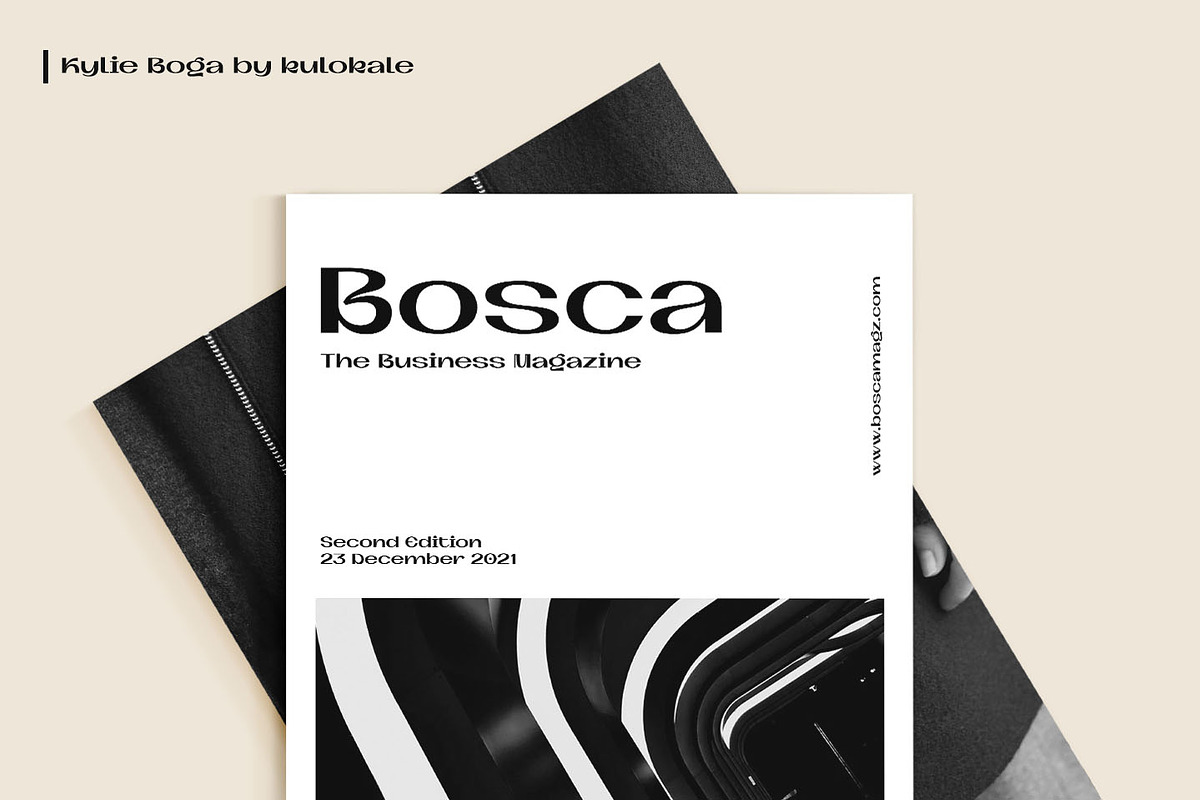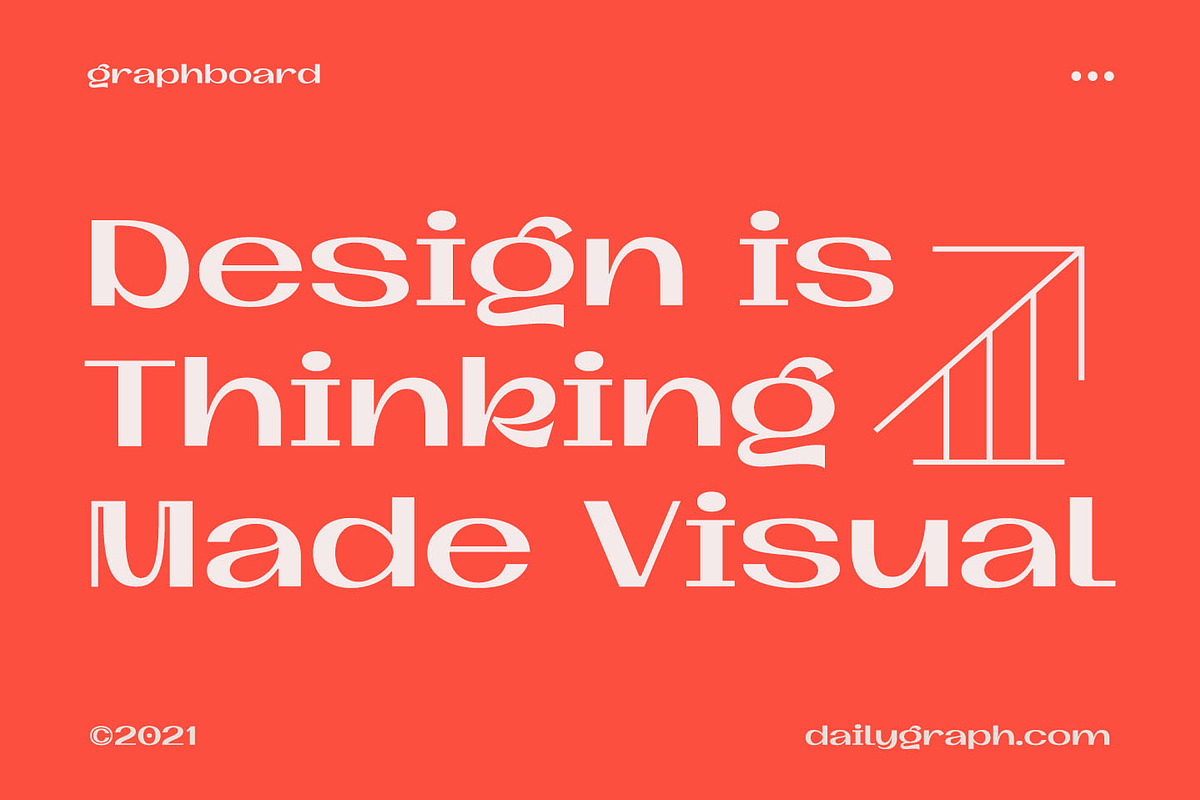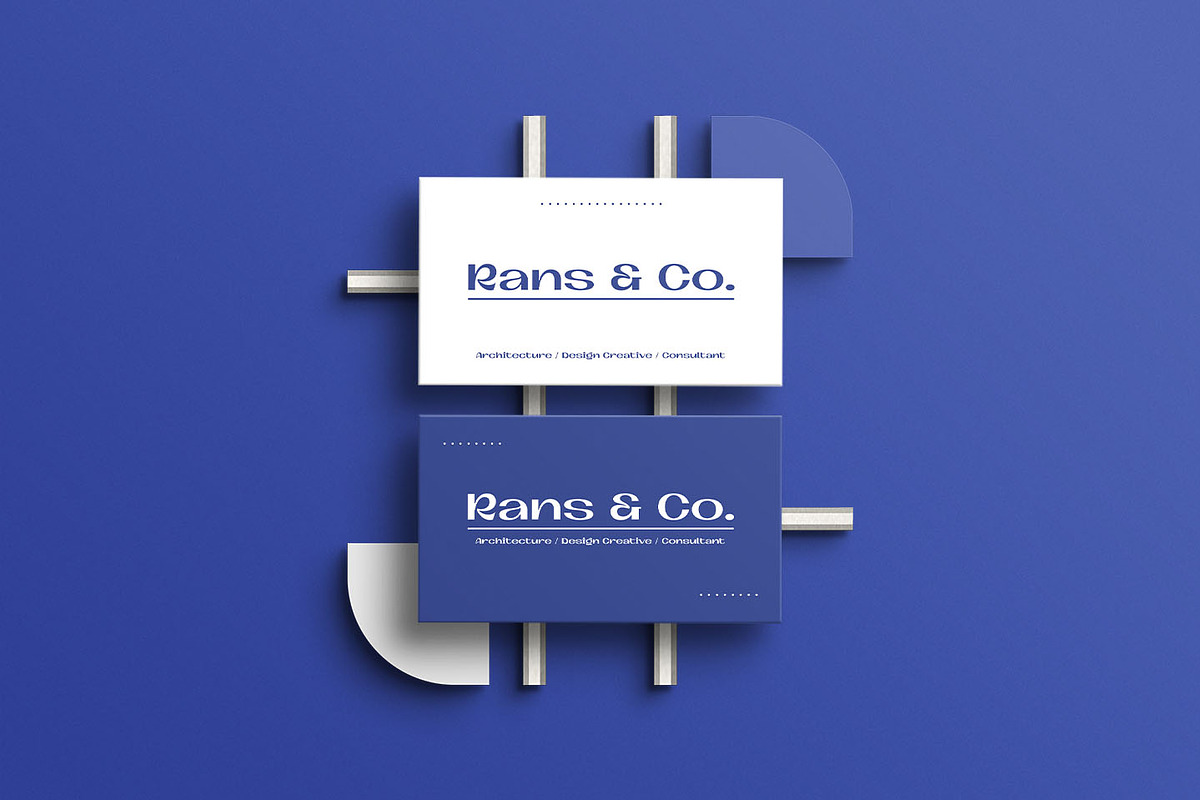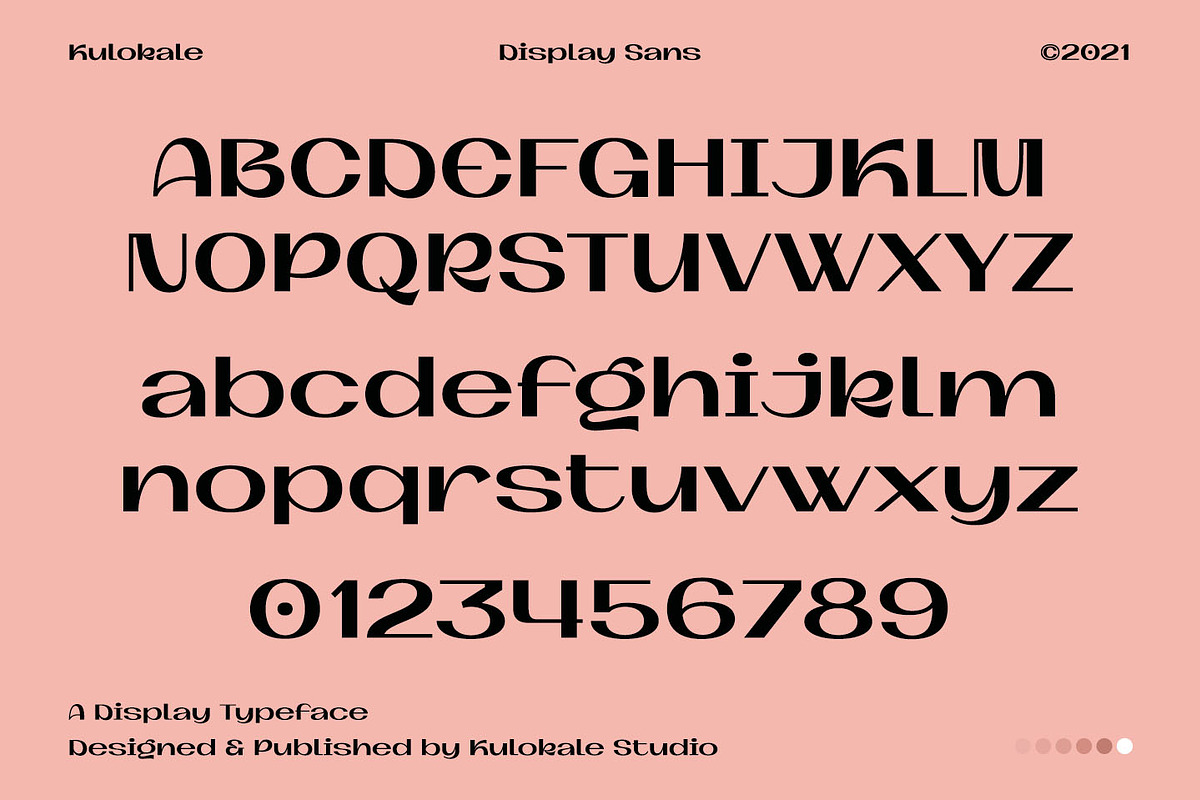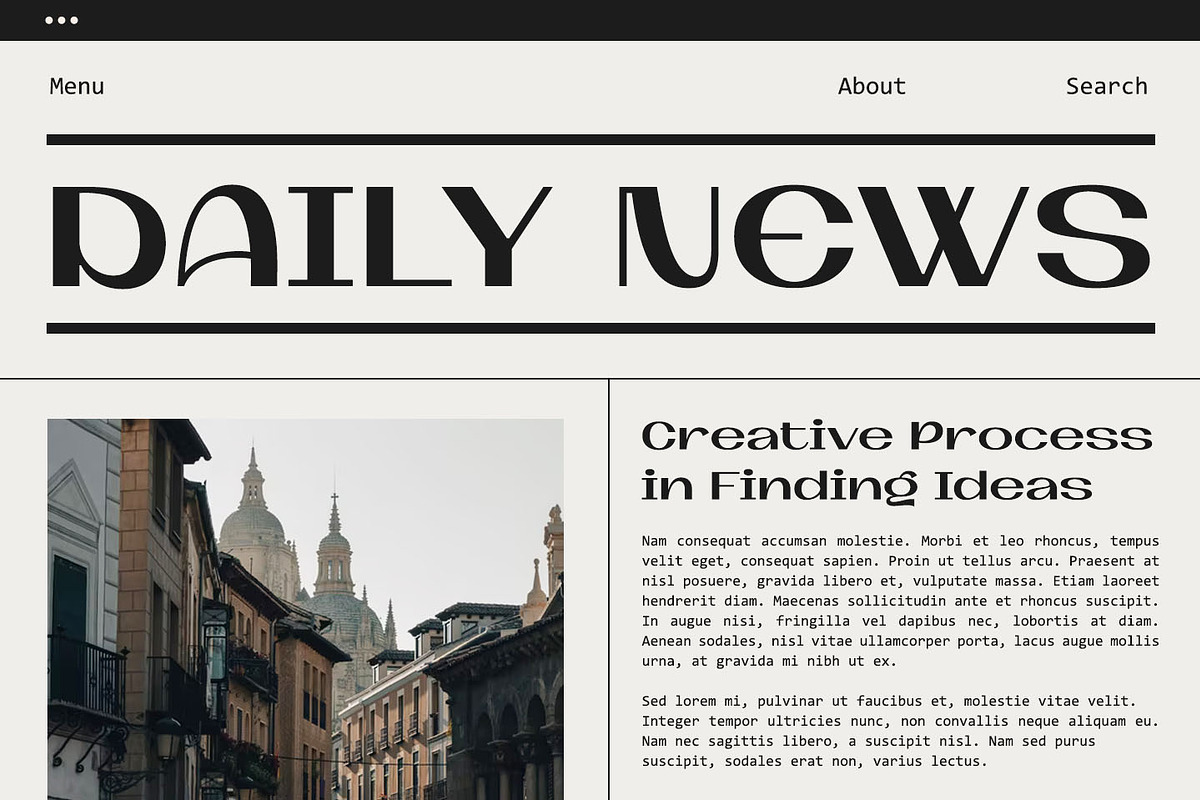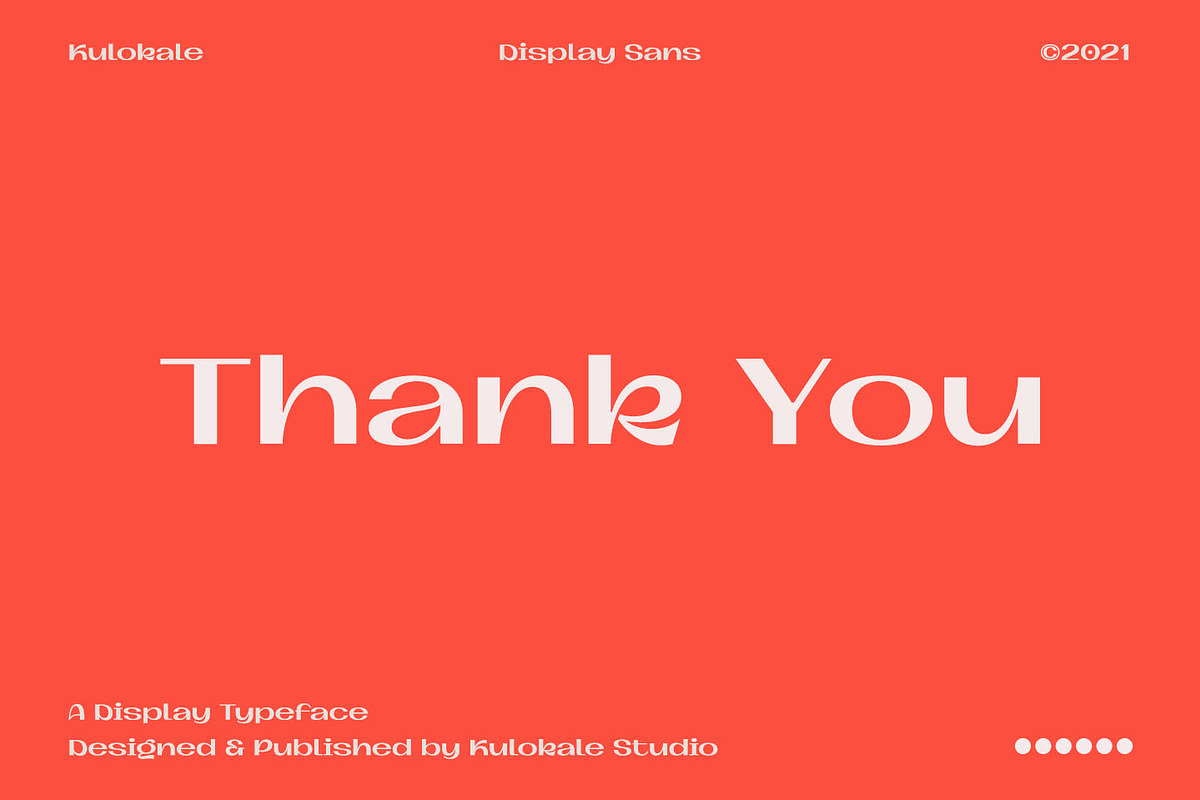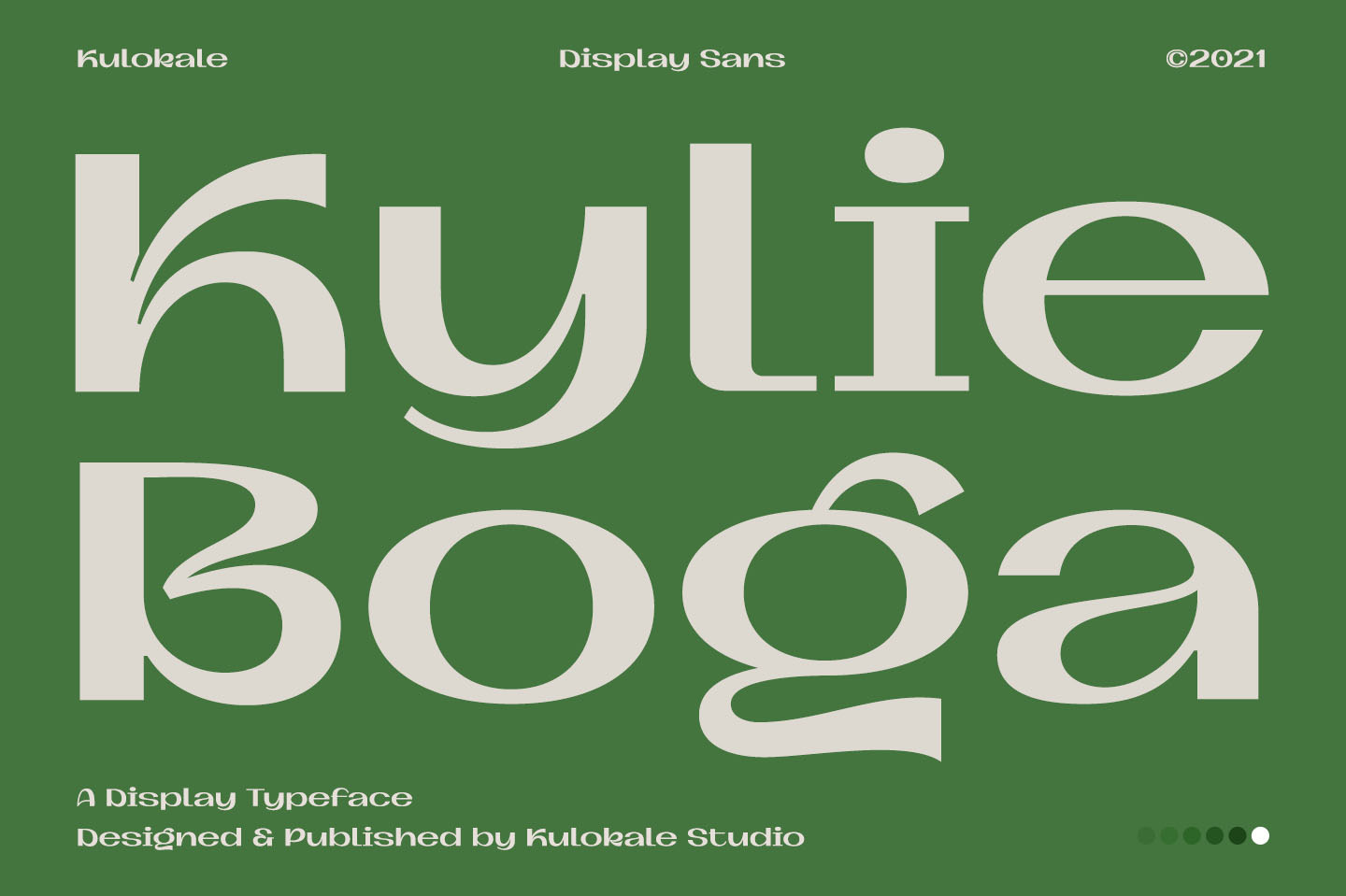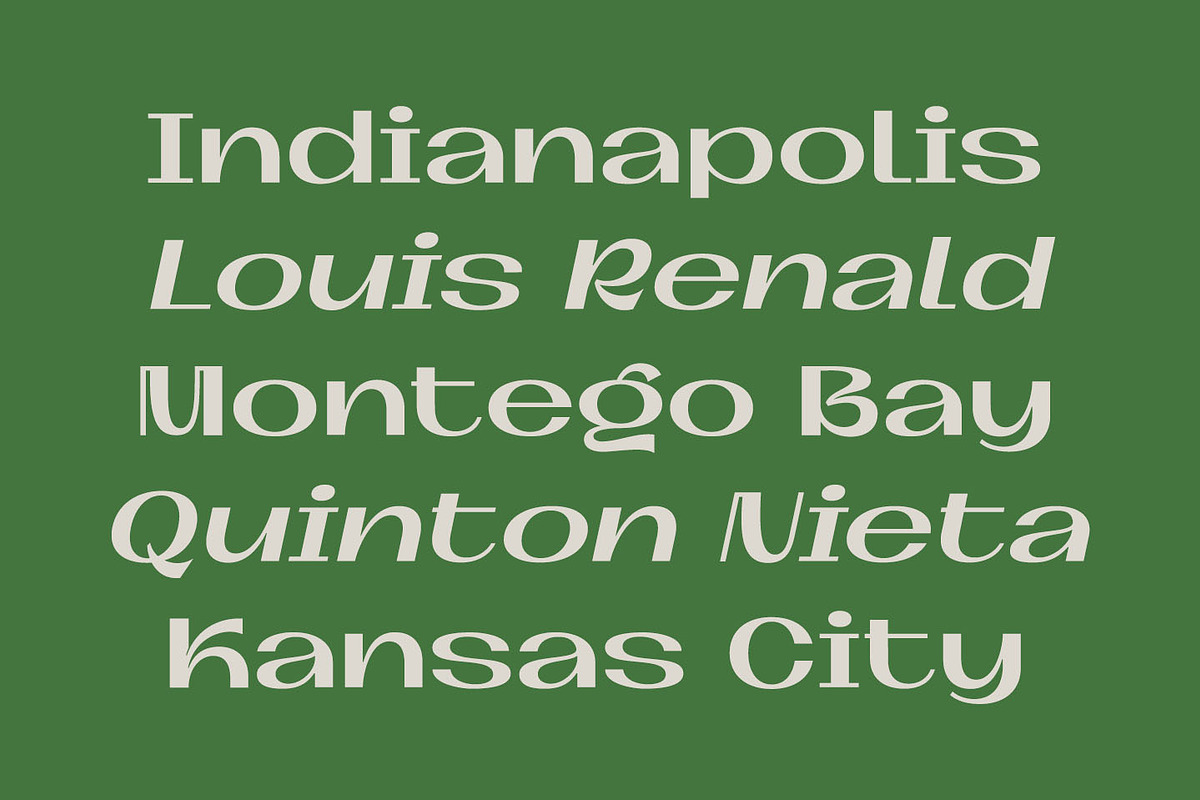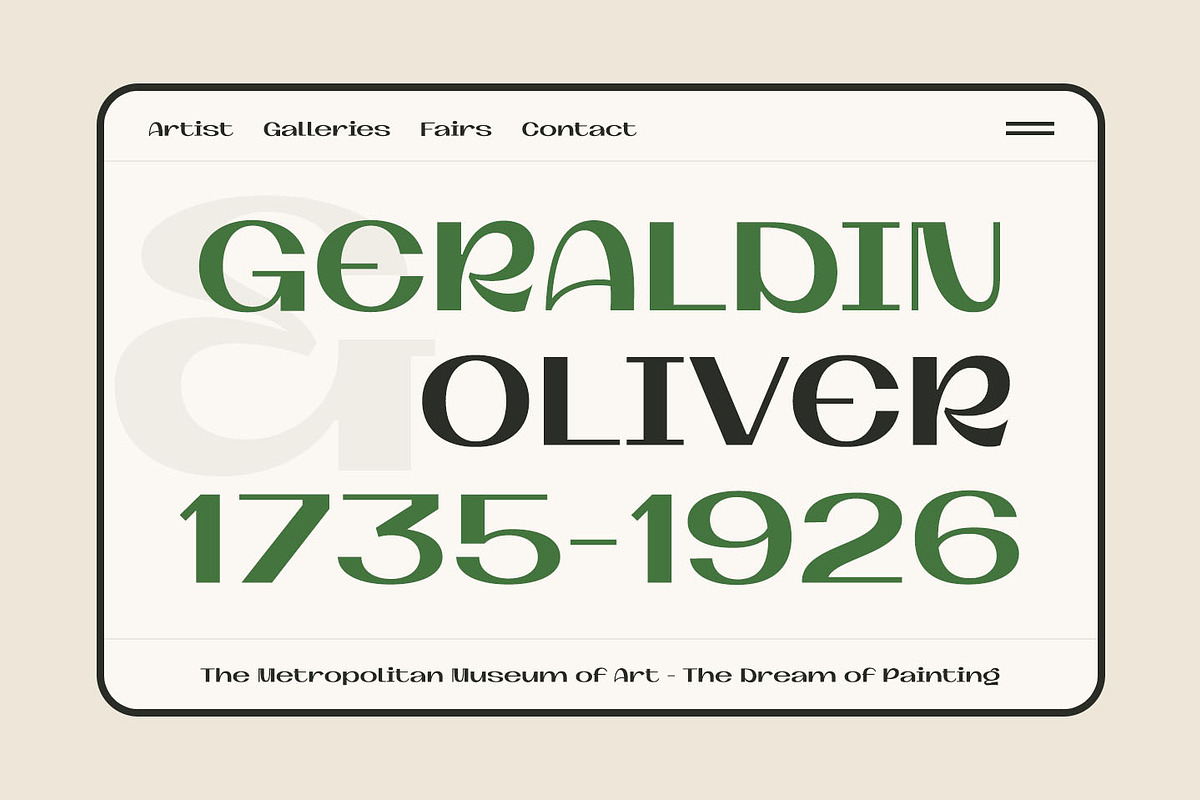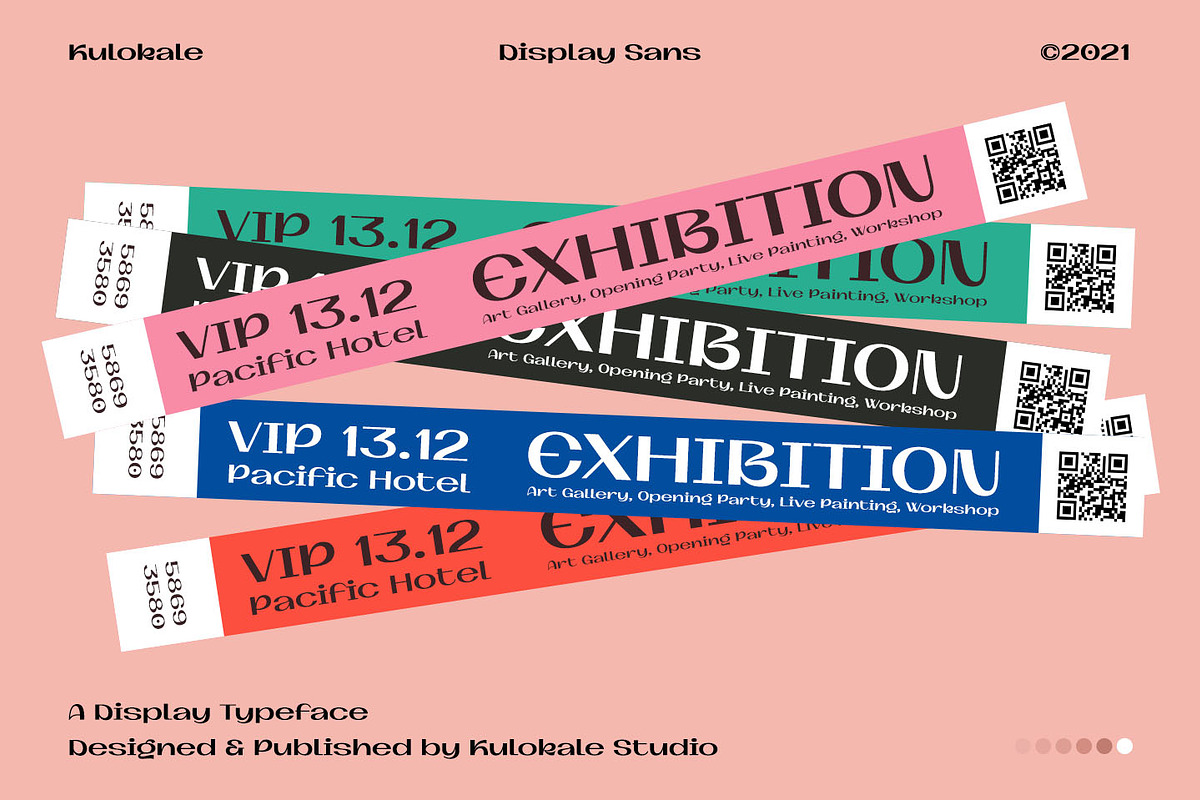
Kylie Boga Display Sans Font
Kylie Boga is a modern display sans font. Kylie Boga is well-suited for advertising, branding, logotypes, packaging, titles, headlines and editorial design. This font comes in two styles, Regular and Oblique Version.